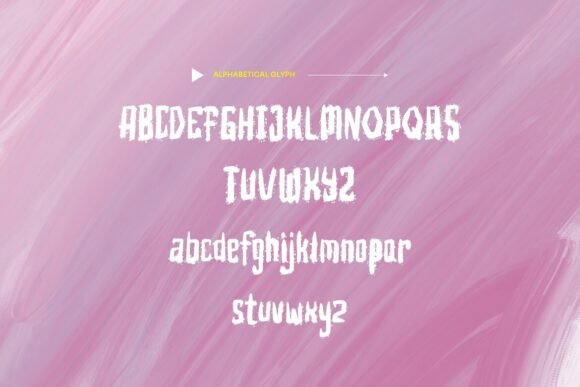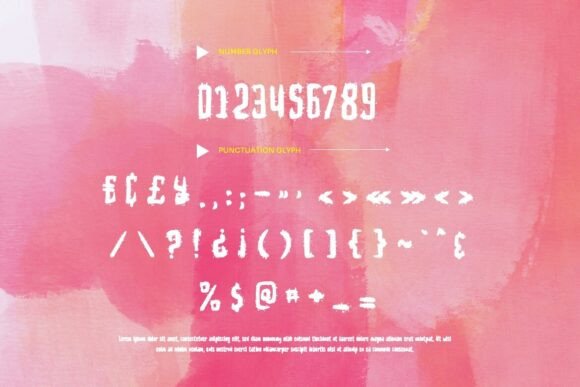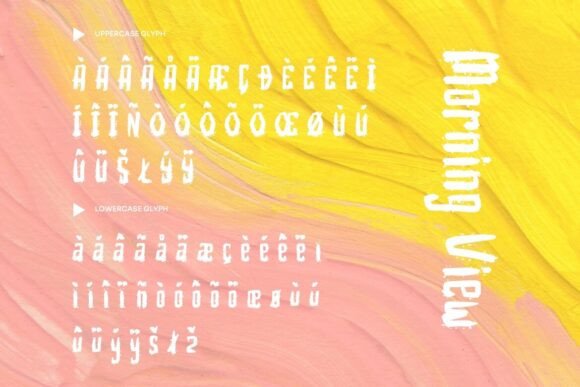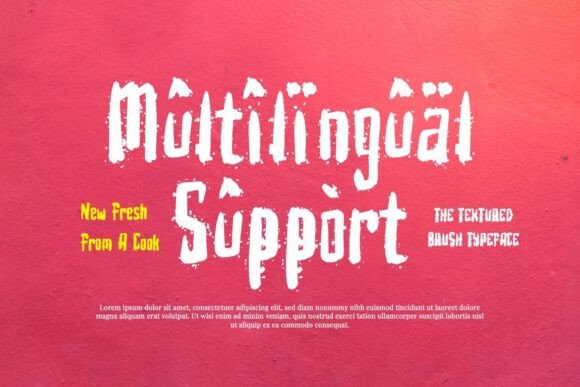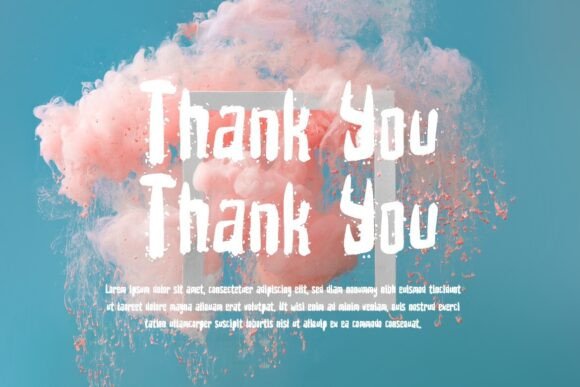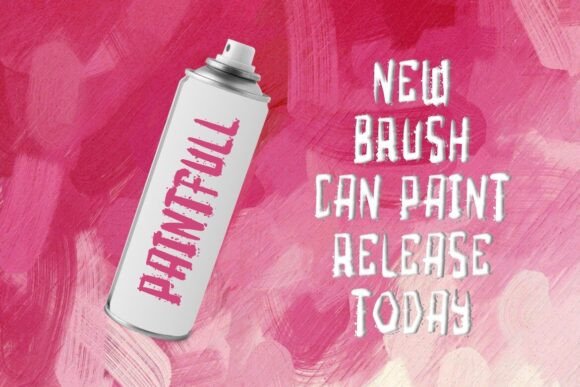
Introduction to Hanoves Textured Font
Hanoves Textured is a rugged and vibrant brush font designed to add dynamic texture to your projects.
Its distressed style is ideal for creative posters, DIY designs, bold social media graphics, and edgy branding Unleash creativity with Hanoves Textured.
Key Features of Hanoves Textured Font